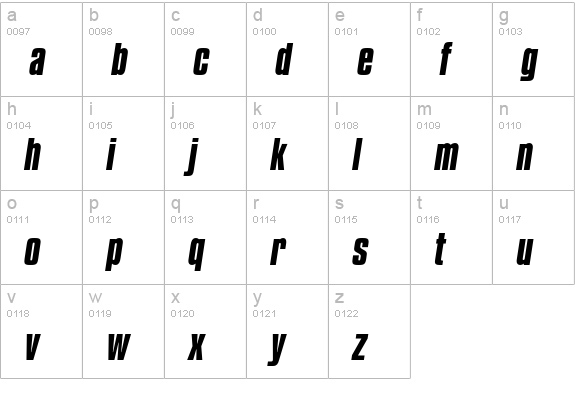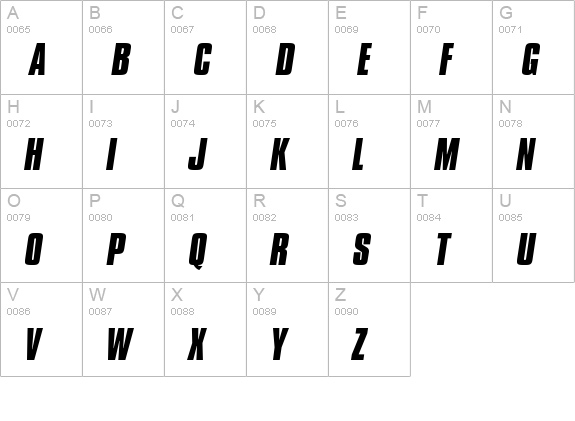
Compacta Bold Italic is a strong, high-contrast, italic variant in the Compacta typeface family \xE2\x80\x94 well suited to headlines, attention-grabbing titles, and strong calls-to-action.
Compacta Bold Italic is a striking and modern typeface that exudes strength and sophistication. Its bold and slanted design makes it perfect for headlines, titles, and branding projects that require a bold statement. The sleek and compact letterforms give a sense of efficiency and professionalism, making it a versatile choice for a wide range of design applications. This font is available for free download at FontsMarket.com, where you can easily access and utilize its bold and italic features in your design projects. Whether you're creating posters, advertisements, or website headers, Compacta Bold Italic is sure to make a bold impact and elevate your designs to the next level. Download it now and add a touch of modern elegance to your projects.